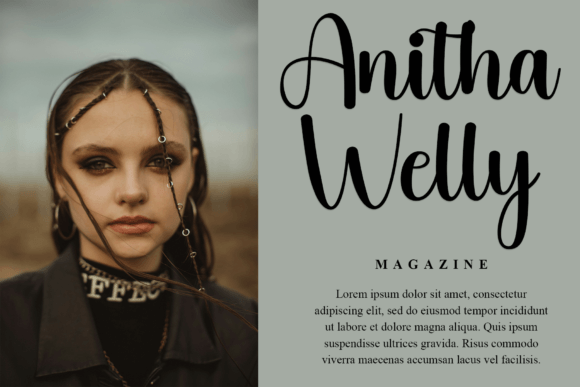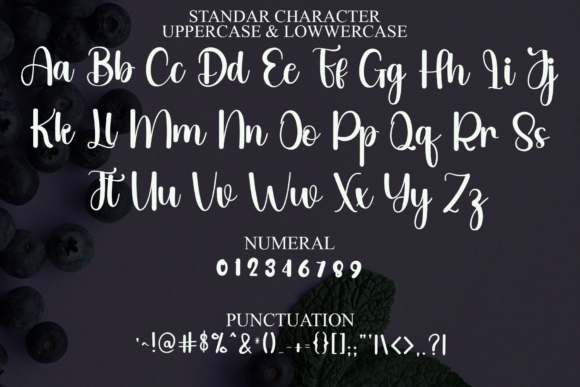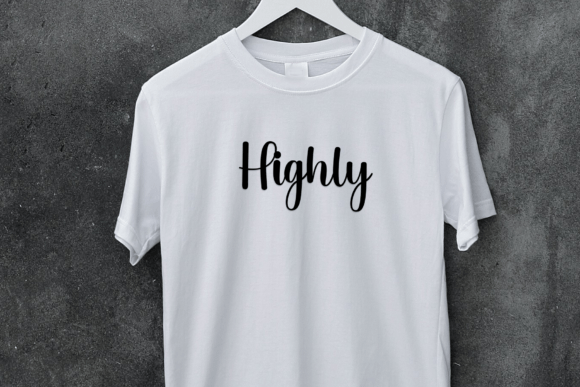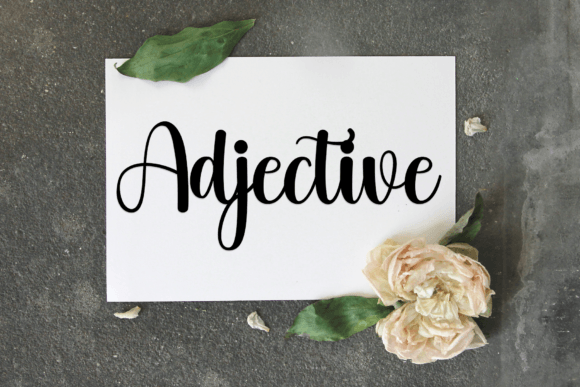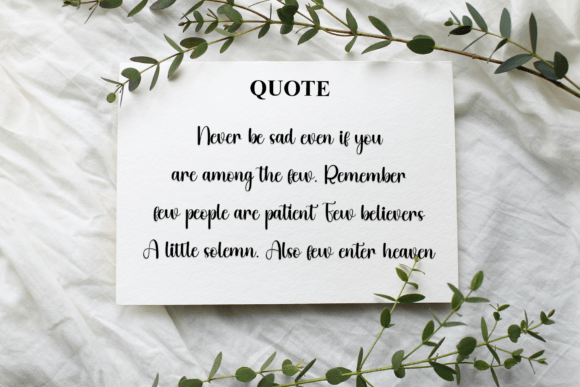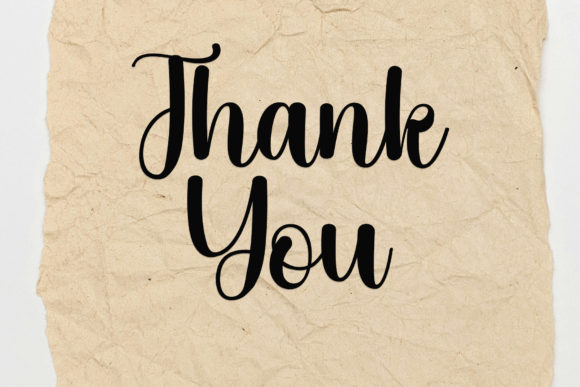
Introducing Beauty Angelica Font: Elevate Your Designs with Elegance
Are you a designer or crafter looking for a font that exudes sophistication and refinement? Look no further than Beauty Angelica Font, a stunning handwritten font that is sure to take your designs to the next level. With its classy, elegant, and modern look, Beauty Angelica is the perfect choice for a wide range of creative projects.
What Makes Beauty Angelica Font So Special?
Beauty Angelica Font is a beautiful and refined handwritten font that boasts a unique blend of classic and modern elements. Its elegant strokes and refined lines make it perfect for designs that require a touch of sophistication. Whether you’re creating logos, branding materials, invitations, stationery, wedding designs, or social media posts, Beauty Angelica Font is sure to impress.
Key Features of Beauty Angelica Font
- PUA Encoded: Beauty Angelica Font is PUA encoded, which means you can easily access all of the amazing glyphs and ligatures. This feature makes it simple to add unique and creative elements to your designs.
- Elegant and Refined: The font’s elegant strokes and refined lines give it a sophisticated look that’s perfect for high-end designs.
- Classy and Modern: Beauty Angelica Font strikes the perfect balance between classic and modern elements, making it versatile and suitable for a wide range of creative projects.
- Multipurpose: This font can be used for a variety of designs, including logos, branding, invitations, stationery, wedding designs, social media posts, and more.
Why Choose Beauty Angelica Font?
With so many fonts available, why choose Beauty Angelica Font? Here are just a few reasons why designers and crafters love this font:
- Unique and Creative: Beauty Angelica Font offers a unique and creative way to add personality to your designs. Its elegant strokes and refined lines make it perfect for designs that require a touch of sophistication.
- Versatile: Beauty Angelica Font is suitable for a wide range of creative projects, from logos and branding to invitations and social media posts.
- High-Quality: This font is designed to deliver high-quality results, with crisp and clear lines that will look great in any design.
How to Use Beauty Angelica Font in Your Designs
Using Beauty Angelica Font in your designs is easy. Here are a few tips to get you started:
- Pair it with Other Fonts: Beauty Angelica Font pairs well with other fonts, so feel free to experiment with different combinations to find the perfect look for your design.
- Experiment with Glyphs and Ligatures: The font’s PUA encoding makes it easy to access all of the amazing glyphs and ligatures. Experiment with different elements to add unique and creative touches to your designs.
- Use it for Headings and Titles: Beauty Angelica Font is perfect for headings and titles, where its elegant strokes and refined lines can really shine.
Beauty Angelica Font is a stunning handwritten font that is sure to elevate your designs with its elegance and refinement. With its classy, modern look and PUA encoding, this font is perfect for designers and crafters who want to create high-quality designs that stand out from the crowd. Whether you’re creating logos, branding materials, invitations, or social media posts, Beauty Angelica Font is the perfect choice.